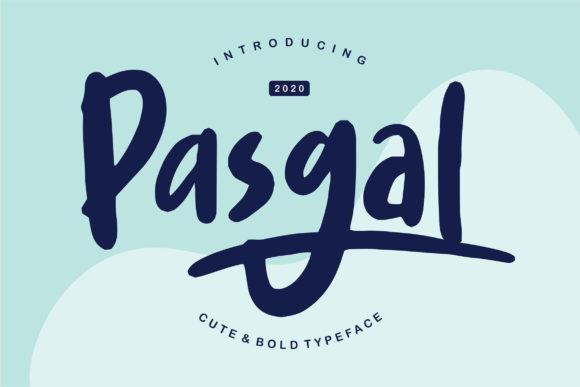
Unleash your creativity with Pasgal, the captivating display font that brings urban and trendy designs to life. Its well-marked characters dance across your screen, inviting you to explore a world of limitless expression. Whether you're a seasoned designer or just starting your creative journey, Pasgal is your perfect companion.
Dive into the realm of urban art, where Pasgal's bold and striking presence commands attention. Its unique style adds an edgy touch to posters, flyers, and social media graphics, making your designs pop with personality. Create eye-catching headlines, logos, and invitations that leave a lasting impression.
With Pasgal, you'll discover a font that's as versatile as your imagination. Its playful nature lends itself to a variety of design projects, from quirky packaging to stylish apparel. Let your creativity run wild as you craft designs that resonate with your audience.
Step into the world of Cricut crafting and elevate your projects with Pasgal's charm. This font is a perfect match for creating stunning banners that add a personal touch to your home décor or special events. Its crisp lines and flowing curves will make your Cricut creations shine.
Pasgal isn't just a font; it's a gateway to a world of artistic possibilities. Its genuine and cute character shines through in every design, captivating your audience and leaving them wanting more. Experience the joy of creating with Pasgal and watch your designs transform into masterpieces that speak volumes.